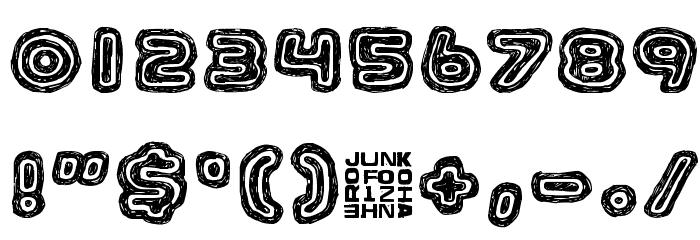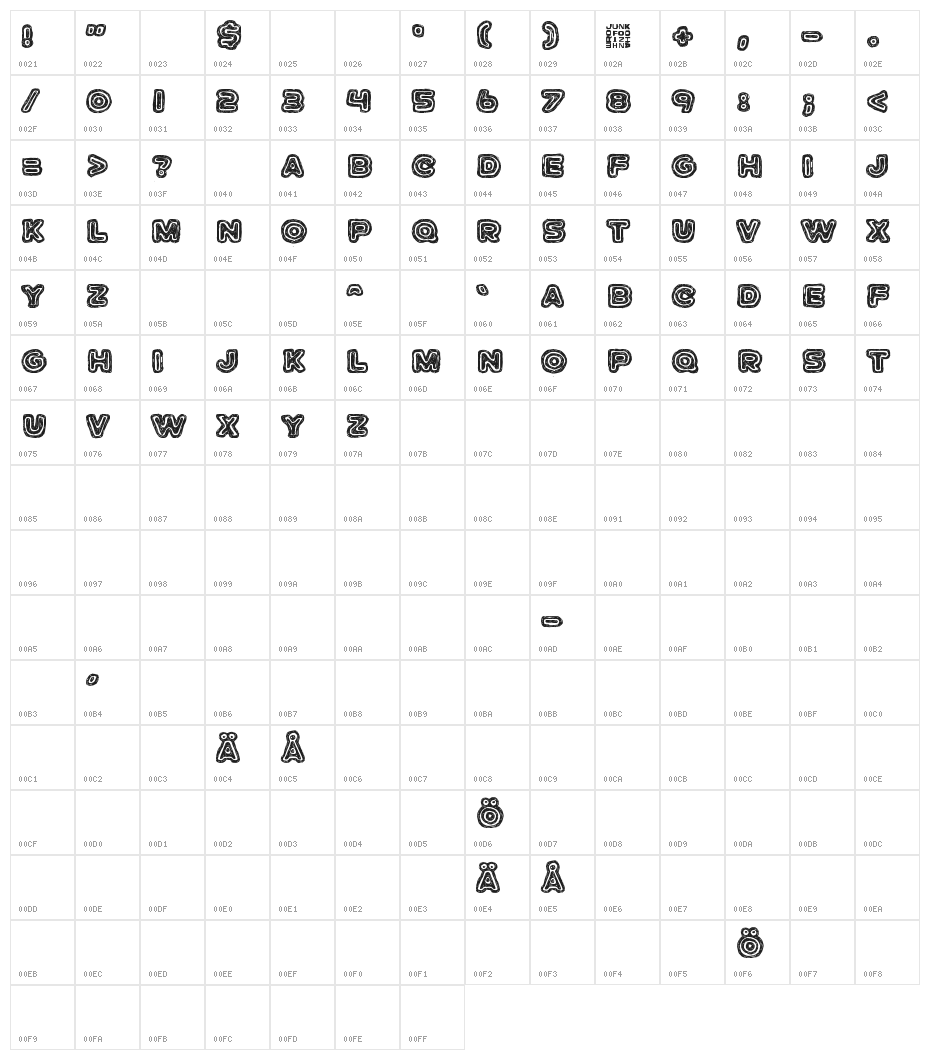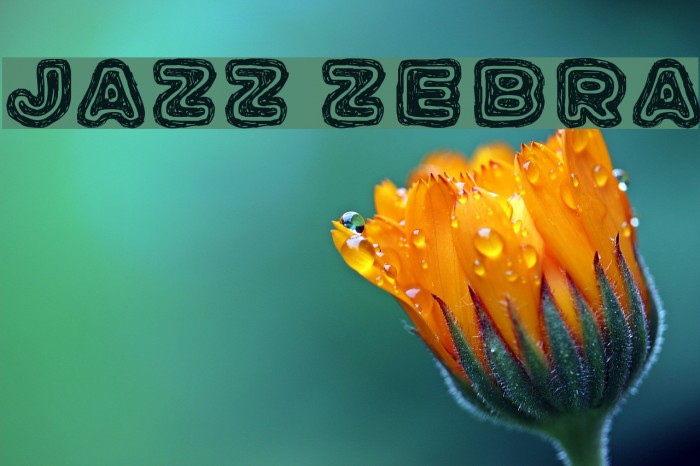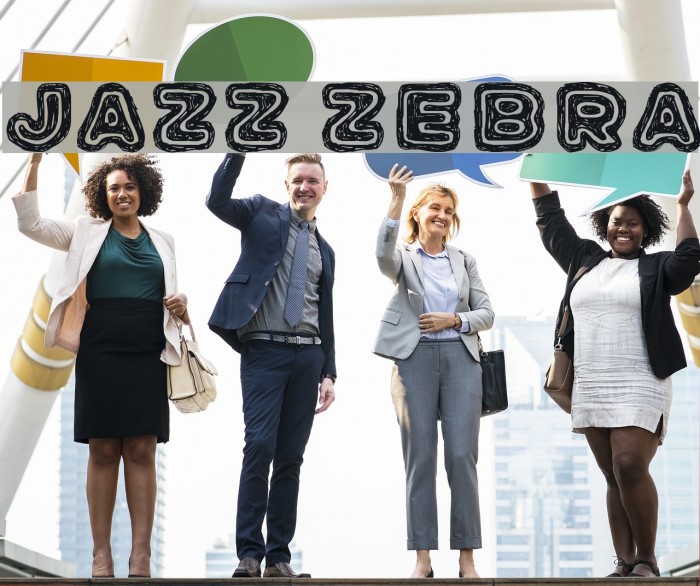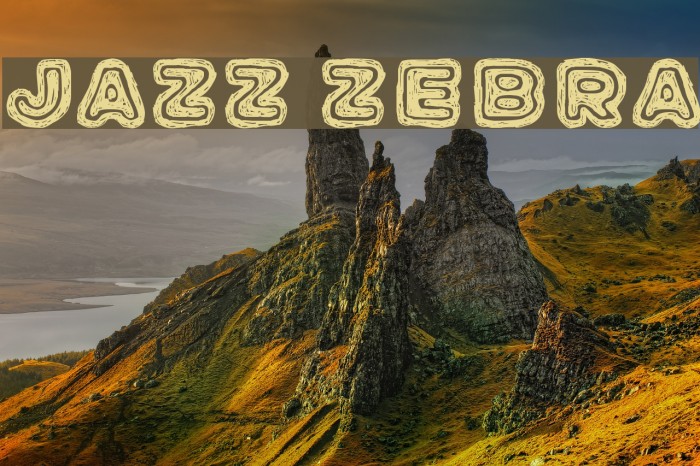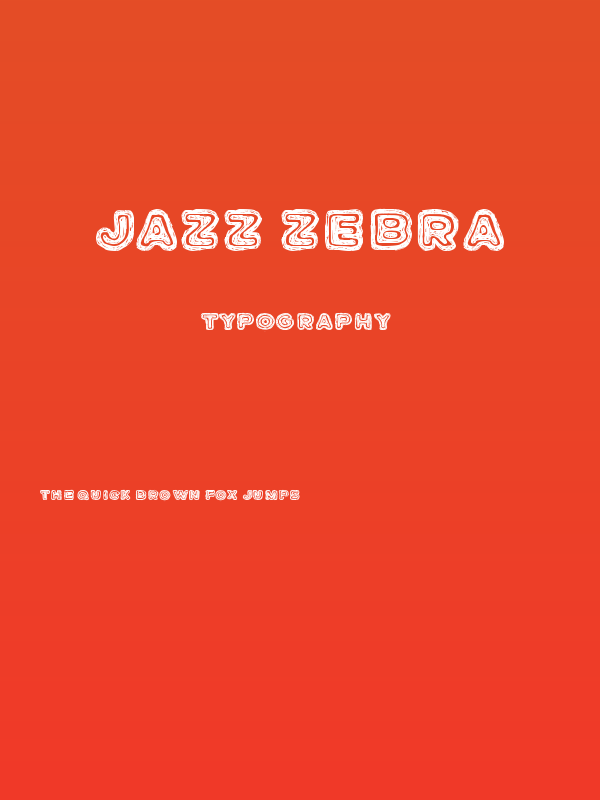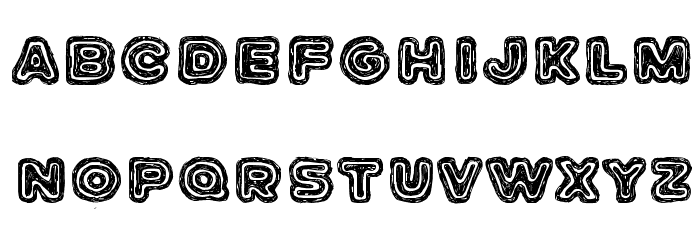
Jazz Zebra Font
Jazz Zebra Description
This font features a bold, playful design with a zebra-like pattern that gives it a unique and eye-catching appearance. The letters are outlined with a thick, uneven stroke that adds to its whimsical and artistic style. The characters are rounded and have a slightly irregular shape, contributing to a lively and dynamic feel. This font is highly decorative, making it suitable for creative and informal applications. The numbers and special characters follow the same design principles, ensuring consistency across all elements.
| Proposed Projects | Ideal for children's book covers, playful posters, party invitations, and branding for creative businesses. |